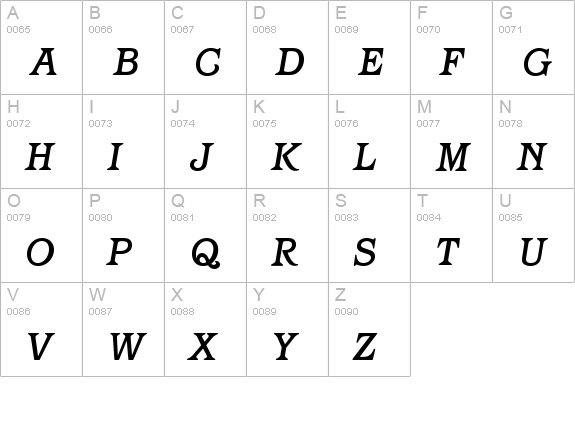
BarcelonaEF-MediumItalic font is a sleek and modern typeface that exudes sophistication and style. Its elegant curves and unique design make it perfect for a wide range of design projects, from branding to editorial layouts. The italic styling adds a touch of flair and individuality to any text, making it stand out from the crowd. What sets BarcelonaEF-MediumItalic font apart is not just its striking appearance, but also the fact that it is available for free download at FontsMarket.com. This means that you can access this high-quality font without any cost, making it a valuable addition to your font library. Whether you are a designer looking to elevate your projects or a creative looking for a fresh new typeface, BarcelonaEF-MediumItalic font is sure to impress with its versatility and charm. Download it today and bring your designs to the next level!